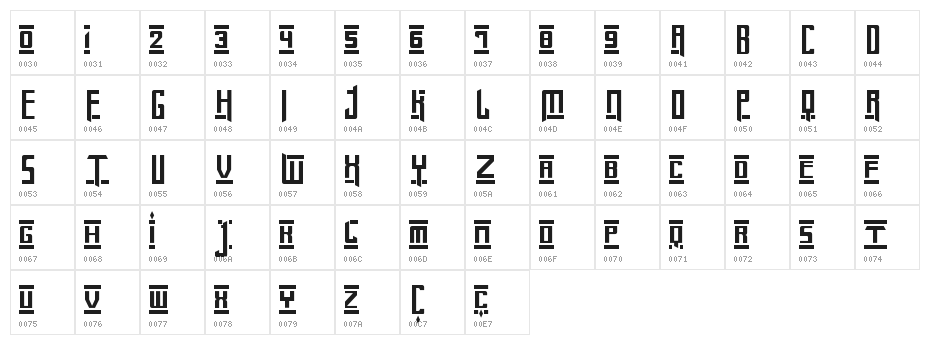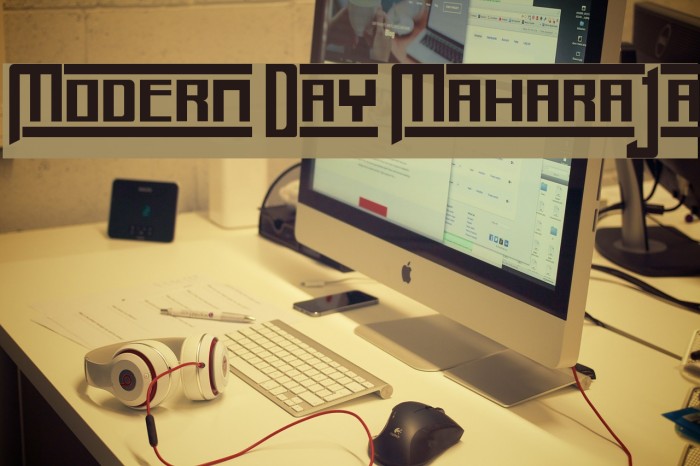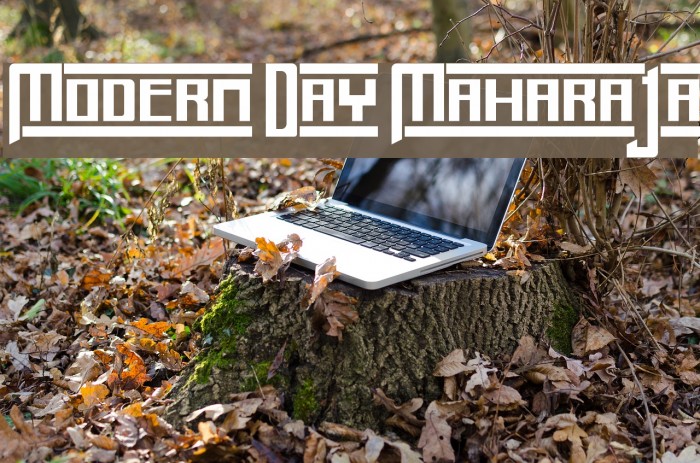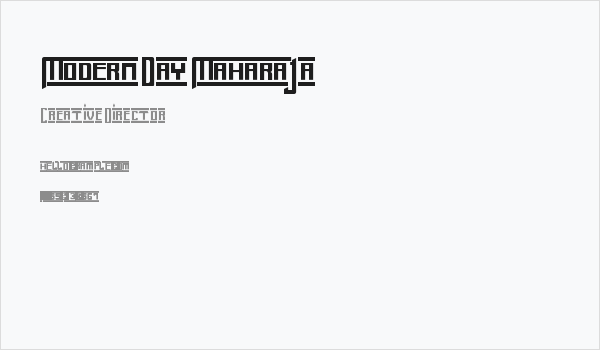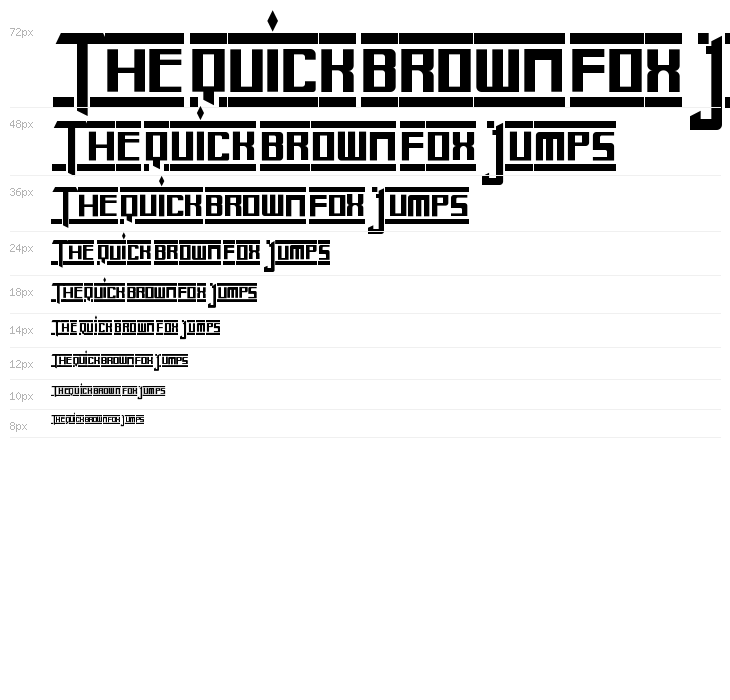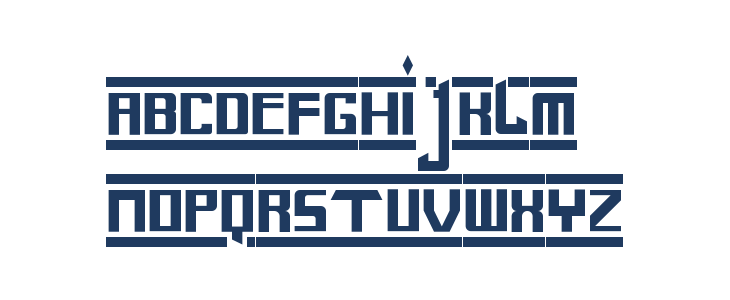
Modern Day Maharaja Font
Modern Day Maharaja Description
This font features a bold and striking design with a distinctly modern and geometric aesthetic. The characters are constructed with thick, block-like strokes that create a sense of strength and stability. The uppercase letters are particularly prominent, with angular edges and a uniform height that gives them a commanding presence. The lowercase letters maintain this boldness, ensuring consistency throughout the typeface. The numbers are equally robust, matching the overall style with their solid and substantial appearance. Special characters are designed to complement the alphabet, maintaining the same geometric and bold characteristics. This font is ideal for projects that require a strong visual impact and a contemporary feel.